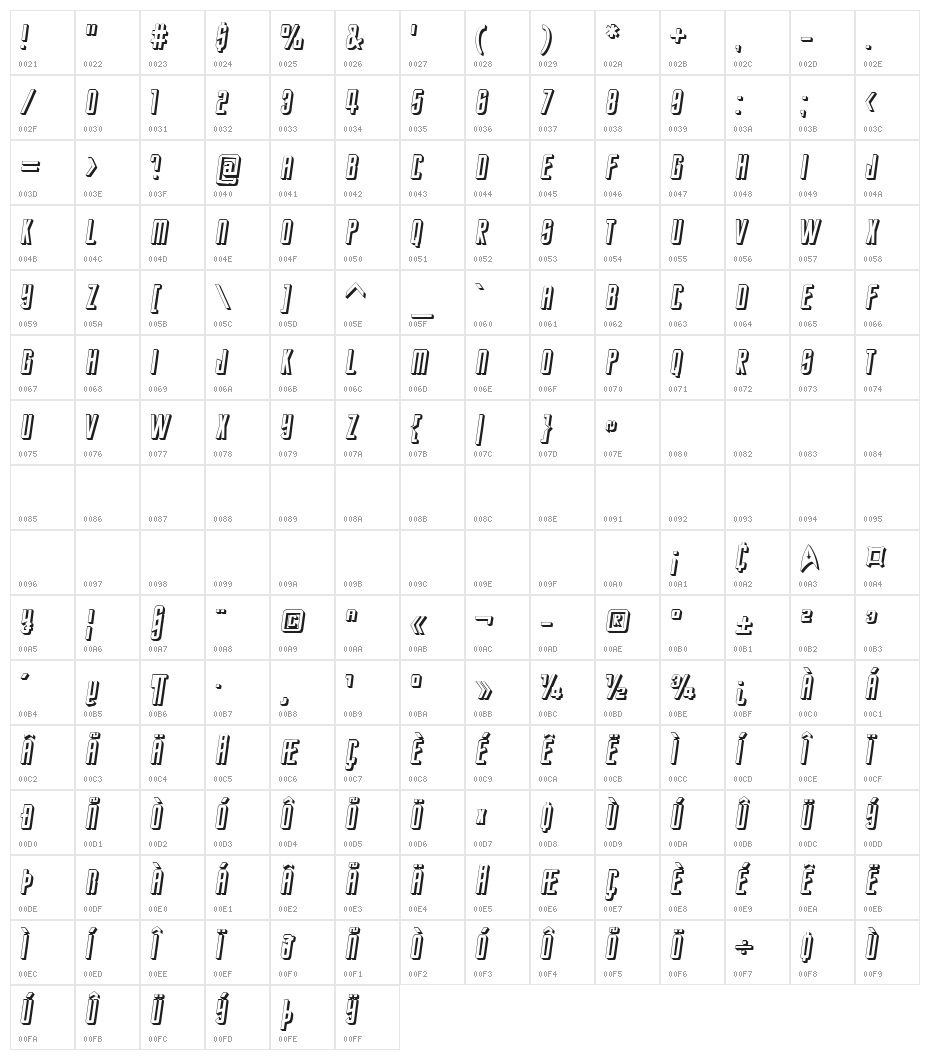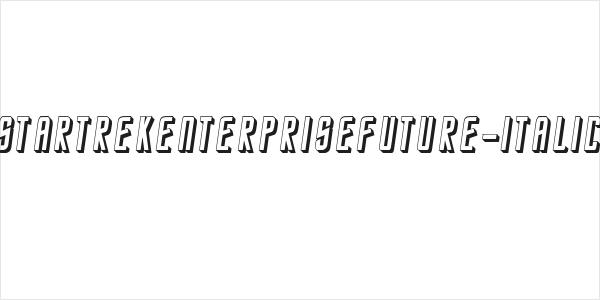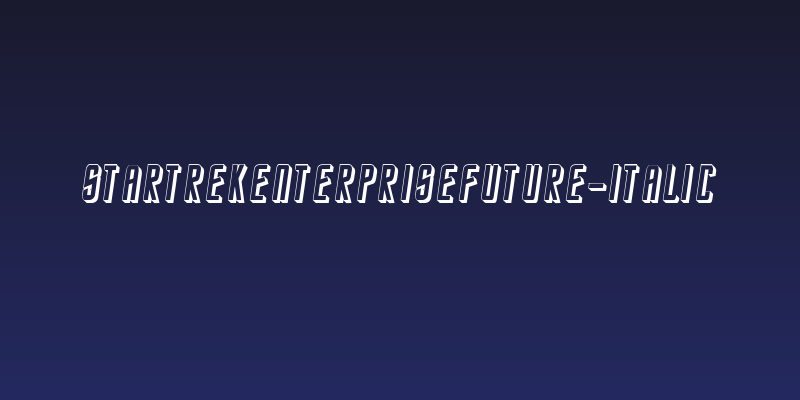
StarTrekEnterpriseFuture-Italic Font
StarTrekEnterpriseFuture-Italic Description
This font features a futuristic and dynamic design, characterized by its italicized and bold letterforms. The letters have a distinct three-dimensional effect, with a shadow that gives them depth and a sense of movement. The angular and geometric shapes of the characters convey a modern and technological feel, making it suitable for projects that require a forward-thinking and innovative aesthetic. The font includes a full set of uppercase and lowercase letters, numbers, and a variety of special characters, ensuring versatility in its application.
| Proposed Projects | Ideal for sci-fi themed projects, technology branding, video game titles, and futuristic posters. |